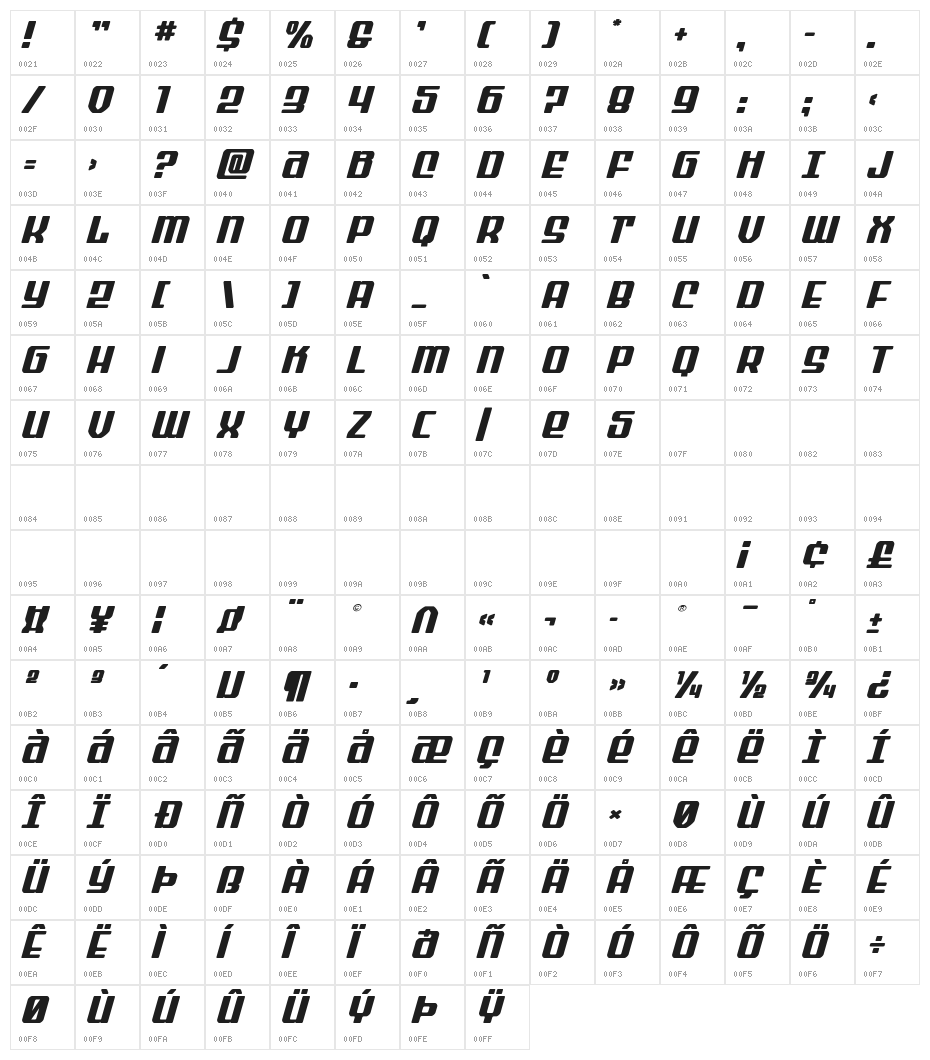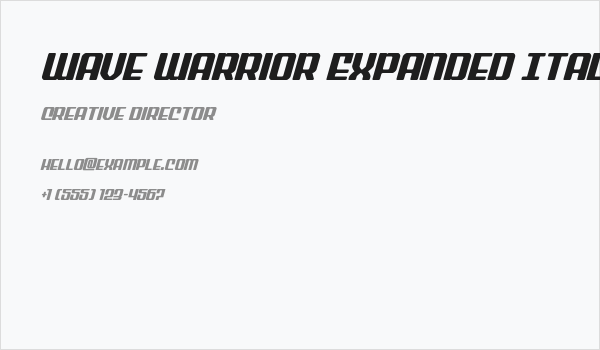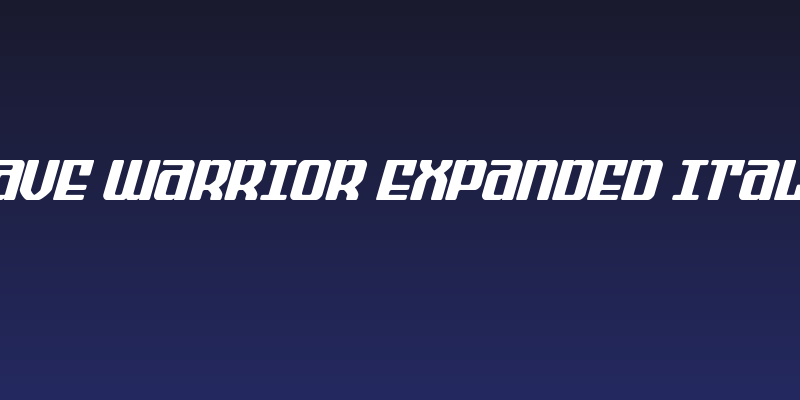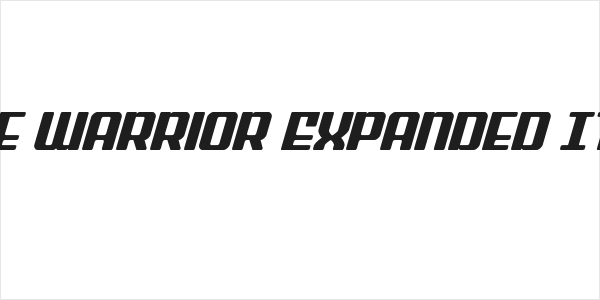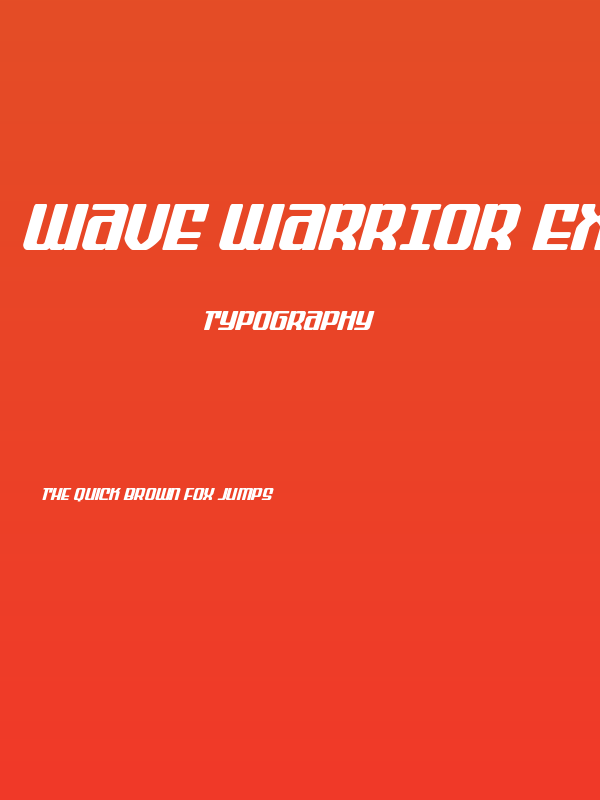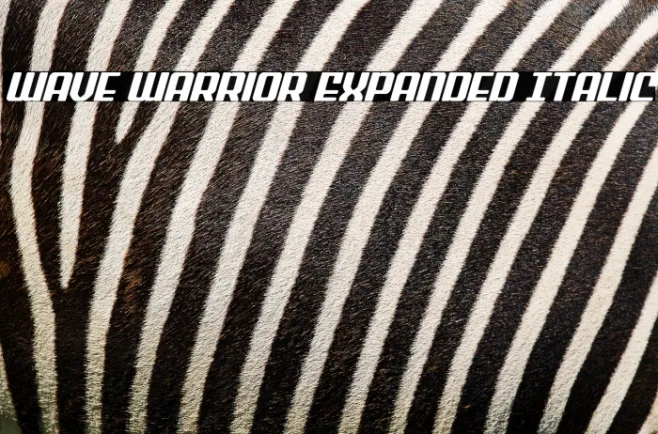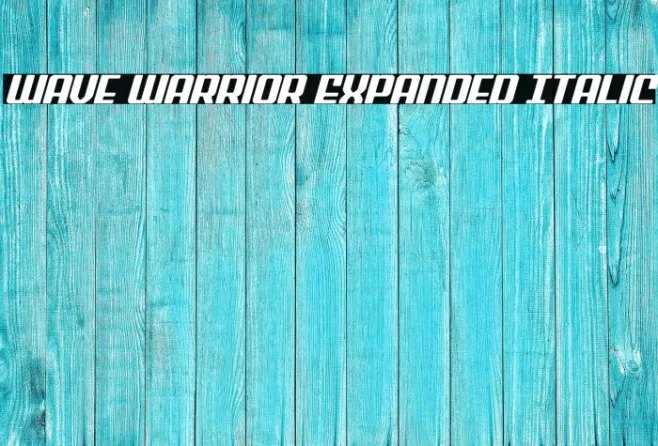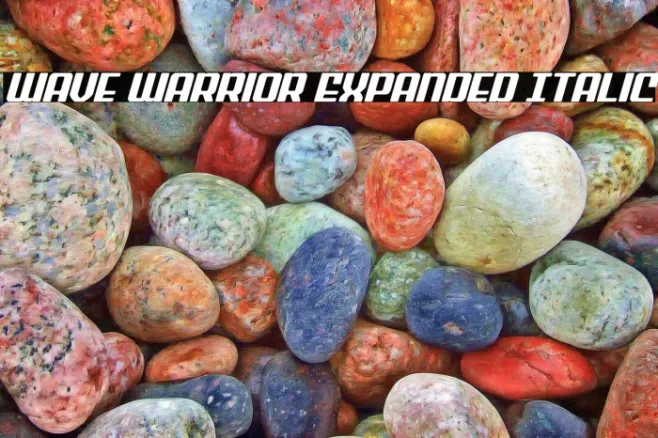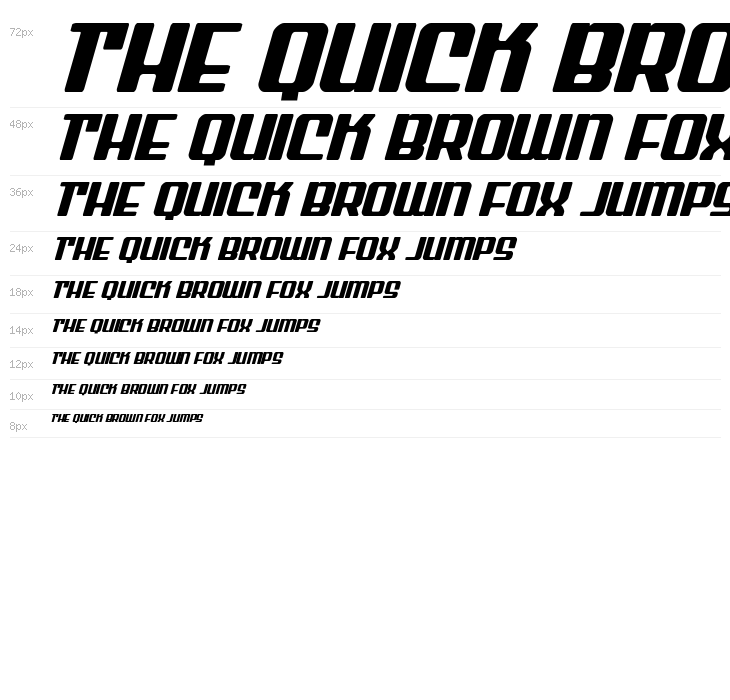
Wave Warrior Expanded Italic Font
Wave Warrior Expanded Italic Description
This font features a bold, italicized style with a distinctly modern and dynamic appearance. The characters are expanded, giving them a wide stance that enhances readability while maintaining a strong visual impact. The strokes are consistent in weight, providing a uniform look across all characters. The design incorporates sharp angles and clean lines, contributing to its futuristic and sporty aesthetic. The font is well-suited for projects that require a bold statement, such as branding, sports team logos, or dynamic headlines. Its expanded width and italic slant add a sense of motion and energy, making it ideal for applications where a sense of speed or action is desired.
| Proposed Projects | Ideal for sports branding, dynamic headlines, and futuristic designs. |